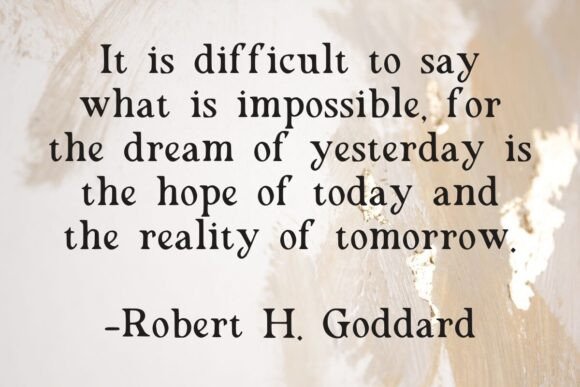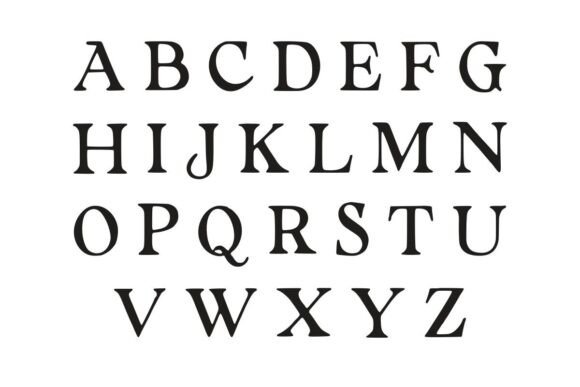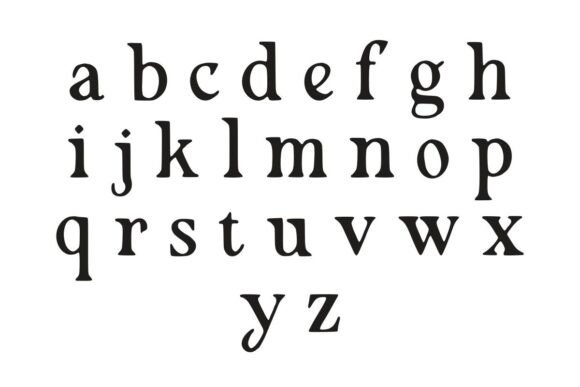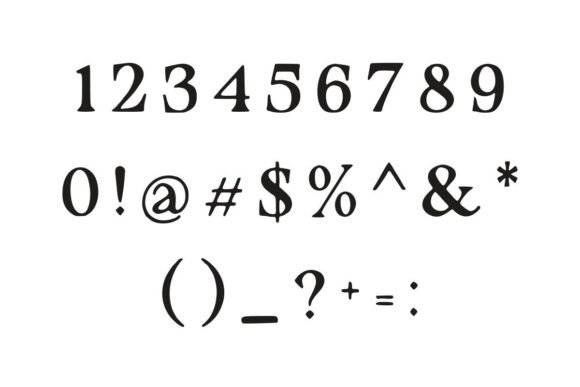
Introducing Evermoor Serif: A Timeless Typeface with a Touch of Whimsy
Evermoor Serif is a refined and slightly whimsical typeface that blends timeless elegance with subtle hand-drawn charm. This beautiful font is perfect for designers and crafters looking for a sophisticated and versatile typeface that can add a touch of classic charm to any design project. With its delicate curves and unique letterforms, Evermoor Serif is ideal for vintage-inspired branding, classic book covers, invitations, and editorial designs that require a high level of sophistication.
The Characteristics of Evermoor Serif
Evermoor Serif boasts a range of characteristics that make it a standout typeface. Its delicate curves and subtle imperfections give it a warm, artisanal feel that’s perfect for designers who want to add a touch of handmade charm to their designs. The font’s unique letterforms are carefully crafted to provide a high level of legibility, making it suitable for use in a variety of design applications, from body text to headings.
Perfect for Vintage-Inspired Branding
Evermoor Serif is a perfect fit for vintage-inspired branding projects. Its classic charm and sophisticated feel make it ideal for designers who want to create a sense of nostalgia and timelessness in their designs. Whether you’re working on a logo, packaging, or marketing materials, Evermoor Serif can help you create a cohesive and stylish brand identity that resonates with your target audience.
Classic Book Covers and Invitations
Evermoor Serif is also a great choice for classic book covers and invitations. Its elegant and refined feel makes it perfect for designs that require a high level of sophistication and poise. Whether you’re working on a romance novel, a historical fiction book, or a formal wedding invitation, Evermoor Serif can help you create a beautiful and eye-catching design that captures the essence of your project.
Sophisticated Editorial Designs
Evermoor Serif is a versatile typeface that can be used in a variety of editorial designs, from magazines and newspapers to blogs and online publications. Its clean lines, delicate curves, and high level of legibility make it perfect for body text, headings, and titles. Whether you’re working on a feature article, a blog post, or a social media graphic, Evermoor Serif can help you create a sophisticated and engaging design that resonates with your audience.
The Benefits of Using Evermoor Serif
So why choose Evermoor Serif for your design projects? Here are just a few benefits of using this beautiful typeface:
- Timeless elegance: Evermoor Serif has a timeless quality that makes it perfect for designs that require a high level of sophistication and poise.
- Unique character: The font’s subtle imperfections and hand-drawn charm give it a unique character that’s perfect for designers who want to add a touch of personality to their designs.
- High legibility: Evermoor Serif is designed to be highly legible, making it suitable for use in a variety of design applications, from body text to headings.
- Versatility: This typeface is versatile and can be used in a range of design projects, from vintage-inspired branding to classic book covers and editorial designs.
Evermoor Serif is a beautiful and versatile typeface that’s perfect for designers and crafters looking for a sophisticated and elegant font. With its delicate curves, unique letterforms, and subtle imperfections, this font is ideal for vintage-inspired branding, classic book covers, invitations, and editorial designs. Whether you’re working on a design project that requires a high level of sophistication or a touch of handmade charm, Evermoor Serif is a great choice.
Get Creative with Evermoor Serif